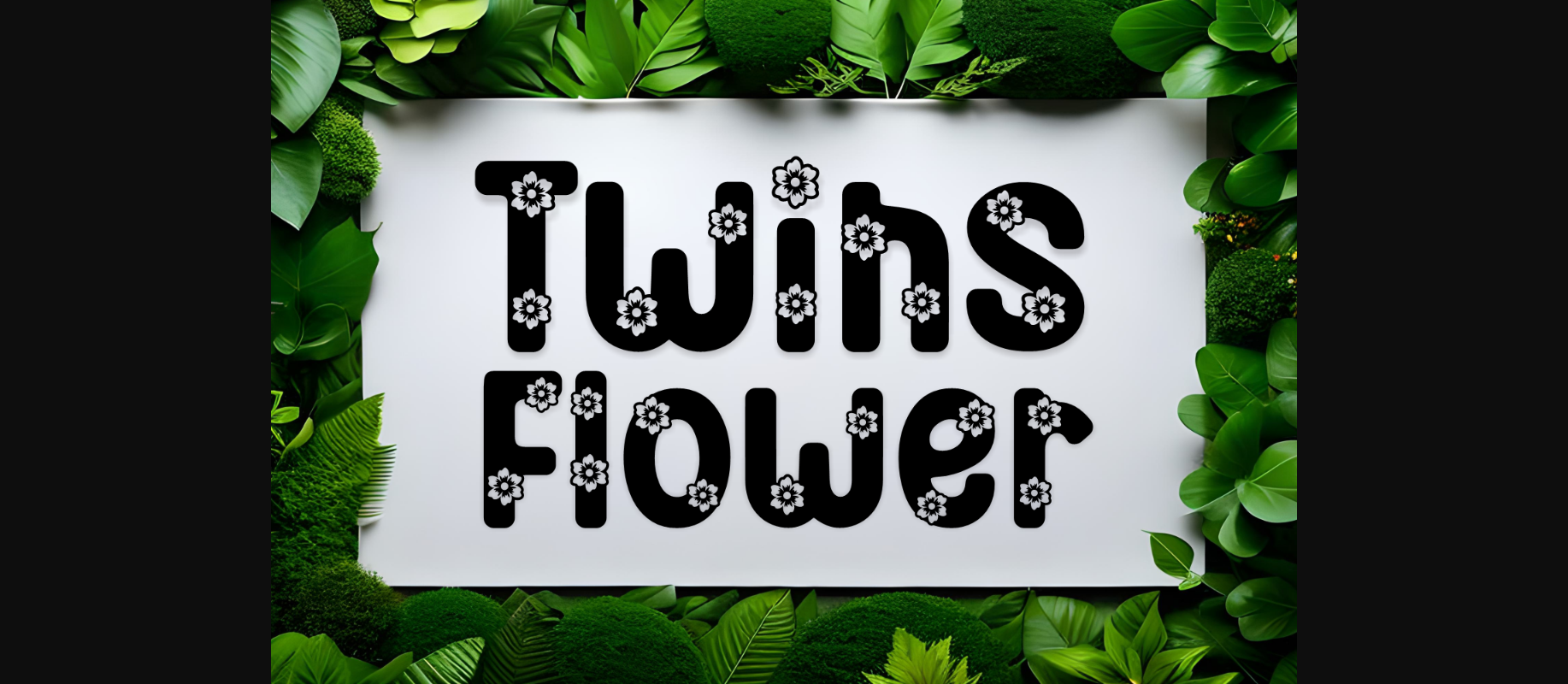
About Twins Flower Font
Twins Flower is an adorable handwritten font that brings a touch of sweetness to your projects. Its playful charm is accentuated by the delightful little decorative flowers scattered across the letters. Perfect for adding a cute and whimsical feel to invitations, cards, or any design that could use a dash of floral charm. Twins Flower effortlessly blends a handwritten style with charming floral details, making it a delightful choice for a range of creative endeavors.